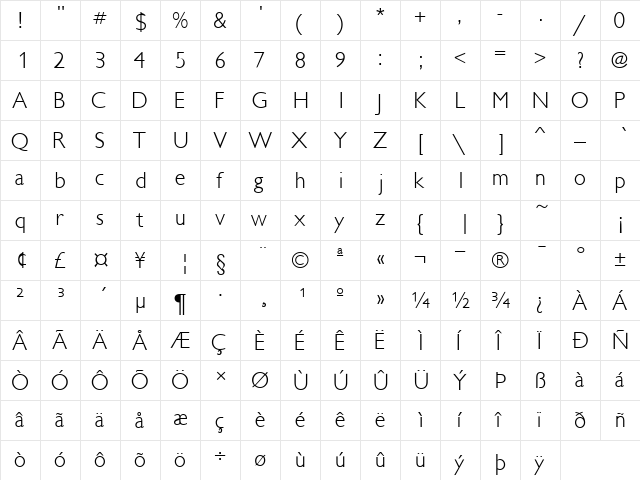
IdiomLightSSK Regular
Design Context for IdiomLightSSK Typeface
IdiomLightSSK offers clean, dependable letterforms without strong stylistic allegiance, making it a practical choice for designers who need flexibility. The delicate stroke weight brings airiness and refinement to layouts.
Pro Tip: Pair IdiomLightSSK with a font of contrasting weight or personality to build a more expressive typographic hierarchy.